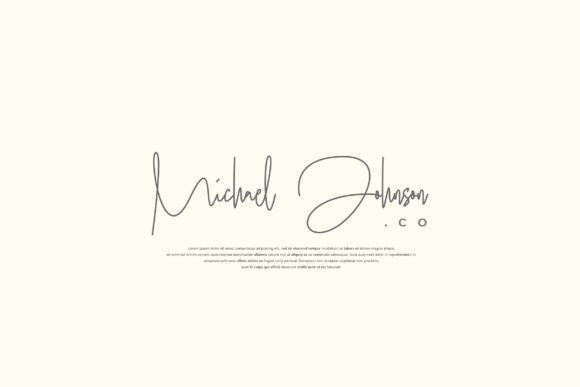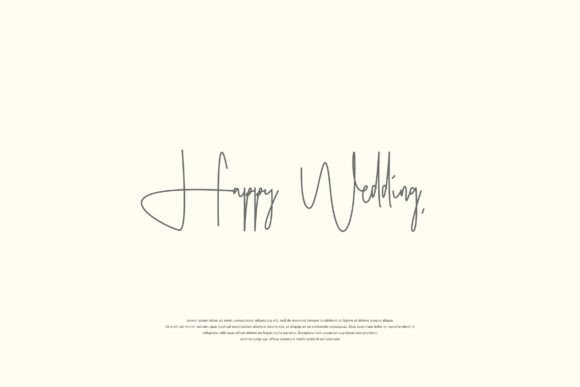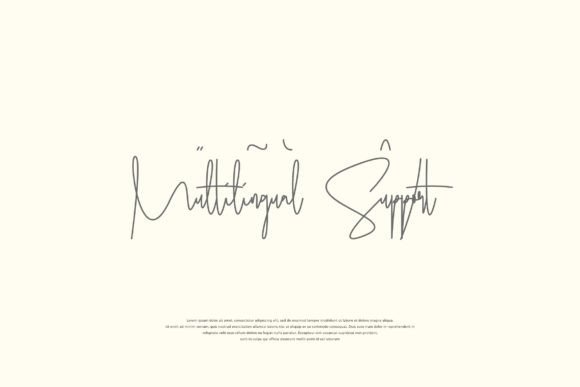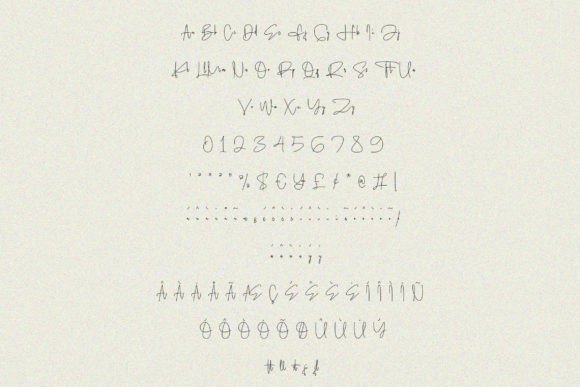
Unleashing Your Creativity with Bellonghim Font
Have you ever stared at a blank canvas, trying to spark a creative idea? Sometimes, all it takes is the right tool to get the ball rolling. For designers and artists, finding the perfect font can be the difference between a decent design and a truly stunning one. That’s where the Bellonghim Font comes in – a beautiful script font that’s sure to elevate your next project.
Bellonghim Font is more than just a pretty face; it’s a versatile tool that’s perfect for posters, t-shirts, branding, and social media. Its monoline style gives it a sleek, modern look that’s sure to grab attention. Whether you’re a seasoned designer or just starting out, this font is a valuable addition to your toolkit.
Bellonghim Font Key Features
- Unique Characteristics: Bellonghim Font features a unique blend of modern and elegant elements, making it perfect for creative and professional projects.
Bellonghim Font Review
I recently had the chance to work with the Bellonghim Font, and I must say it’s a unique addition to any design project. ✨ The font’s elegant, cursive script immediately catches the eye, and its versatility makes it suitable for a wide range of applications, from wedding invitations to branding materials.
✨ Its cursive script is beautifully crafted, making it perfect for creating a sense of romance and sophistication.
✨ The font’s versatility allows it to be used in both modern and classic designs, giving designers a lot of creative freedom.
✨ The font’s large character set and support for multiple languages make it a great choice for international projects.
However, there are some limitations to consider: ⚠️ The font’s elegance comes at the cost of legibility, and it may not be the best choice for body text or large blocks of text. Additionally, some users may find the font’s style a bit too over-the-top for certain projects.
Overall, I would give the Bellonghim Font a solid 4 out of 5 stars. While it may not be the most practical choice for every project, its unique charm and versatility make it a valuable addition to any designer’s toolkit.
The Bellonghim font is ideal for creating elegant and sophisticated designs, such as:
- Magazine and newspaper titles
- Book covers and publishing materials